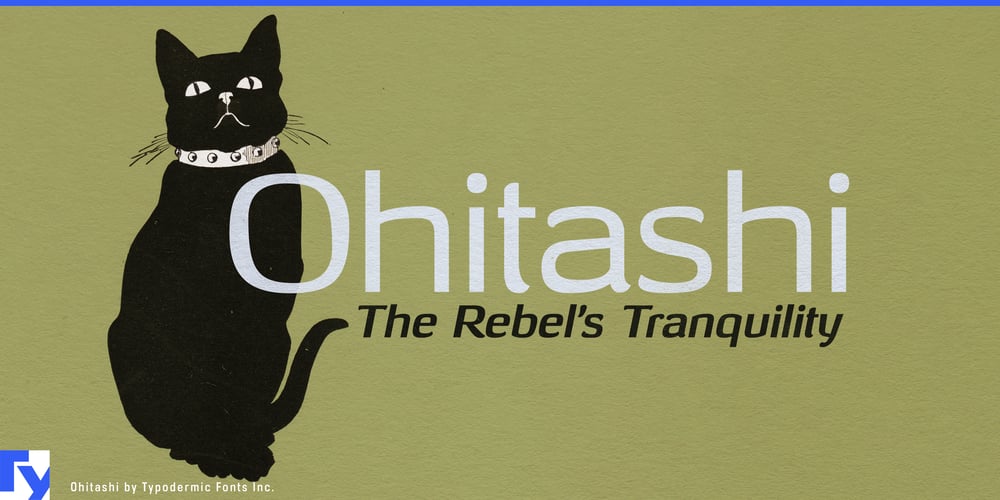
Ohitashi Font Family was designed by Ray Larabie and published by Typodermic. Ohitashi contains 6 styles and family package options. In the zen garden of typography, where sans-serifs stand like neatly trimmed bonsai, Ohitashi emerges as a wild orchid—exotic, unexpected, yet perfectly at peace with its surroundings. This isn’t just a typeface; it’s a meditation on the beauty of the unconventional.Each glyph is a carefully considered brushstroke, blending humanistic warmth with incised precision. The result? A typeface that doesn’t shout its uniqueness, but rather invites you to pause and appreciate its subtle complexities. Ohitashi comes to you in three harmonious weights—standard for everyday enlightenment, semi-bold for moments of clarity, and bold for when your message needs to resonate like a temple bell. This versatility allows Ohitashi to adapt to any design landscape, from tranquil business cards to dynamic digital interfaces.Don’t mistake Ohitashi’s calm demeanor for conformity. This typeface speaks the language of quiet rebellion, fluent in most Latin-based European writing systems. From the fjords of Norway to the sun-drenched plazas of Spain, Ohitashi ensures your message maintains its zen-like poise while subtly challenging the status quo. In a design world often caught in the undertow of trends, Ohitashi stands as an island of thoughtful innovation. It’s for brands that don’t just follow the path—they forge new ones. For messages that don’t need to raise their voice to be heard. From artisanal tea packaging to mindfulness app interfaces, Ohitashi communicates with the serene confidence of a master calligrapher.Choose Ohitashi and watch your designs achieve a state of typographic nirvana. Because in the bustling marketplace of fonts, Ohitashi doesn’t compete—it transcends, offering a moment of visual stillness in a world of constant motion.